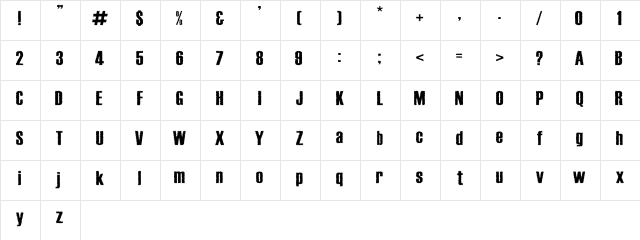
Follow Storm Regular Font Preview
Follow Storm Regular
Design Context for Follow Storm Typeface
Follow Storm takes a measured approach to typography — its balanced proportions and neutral character make it a reliable workhorse for both digital and print work.